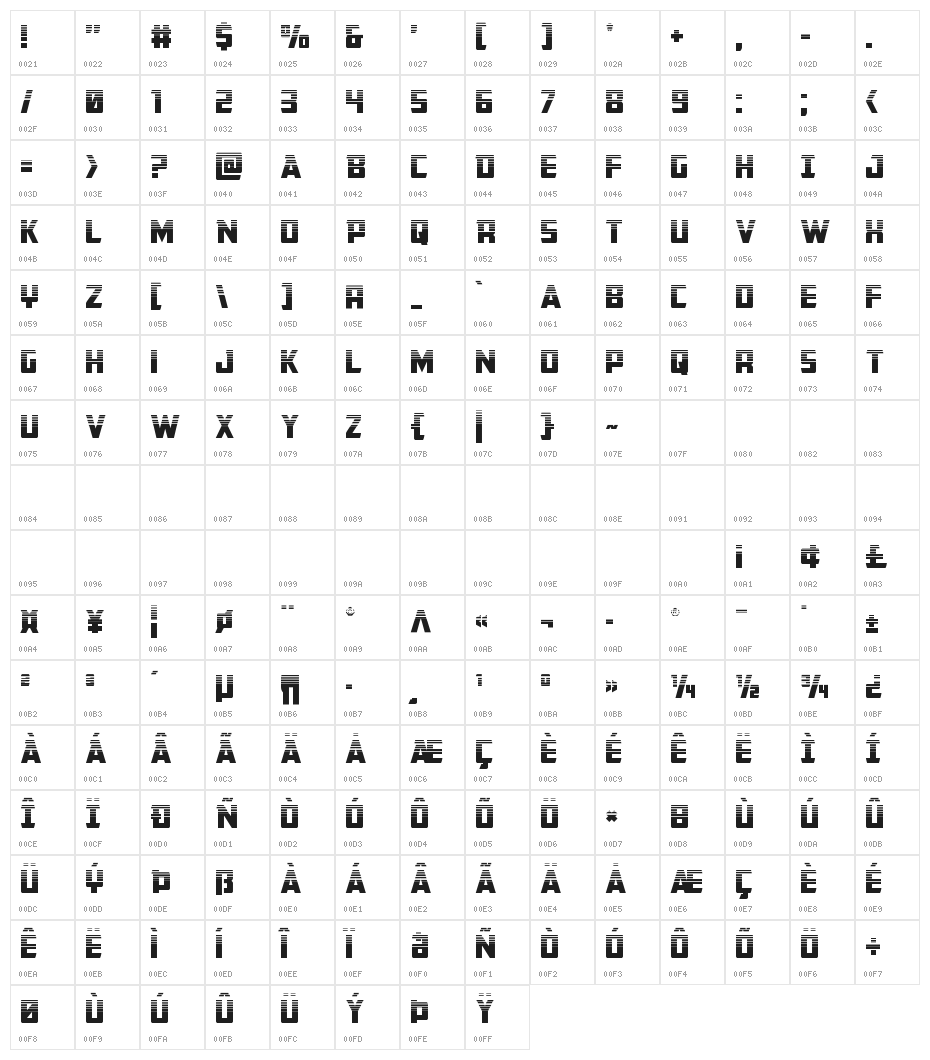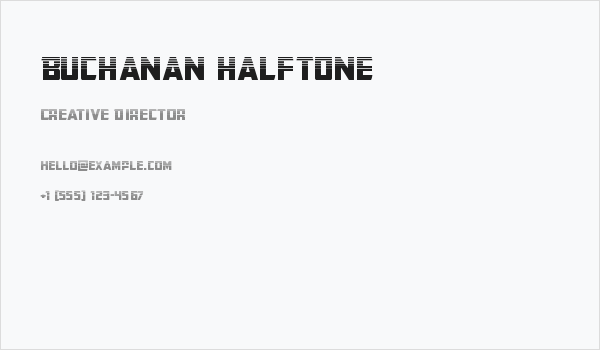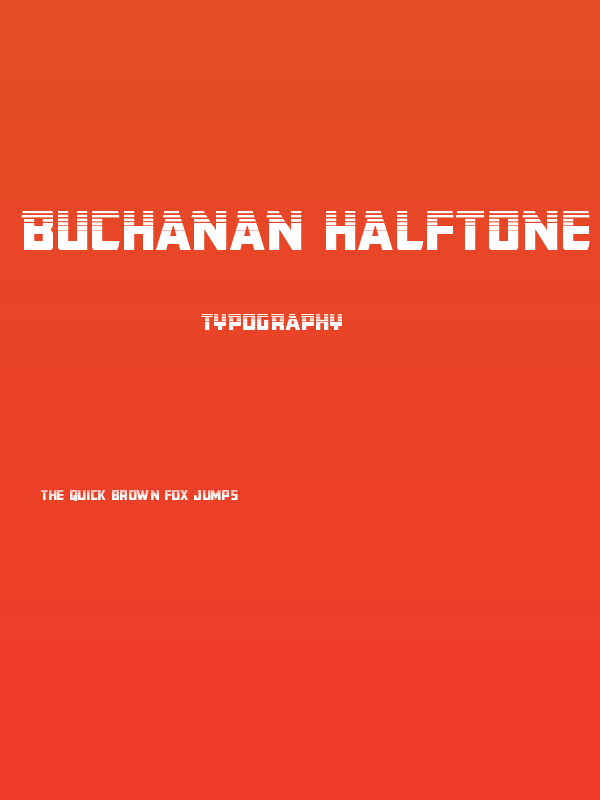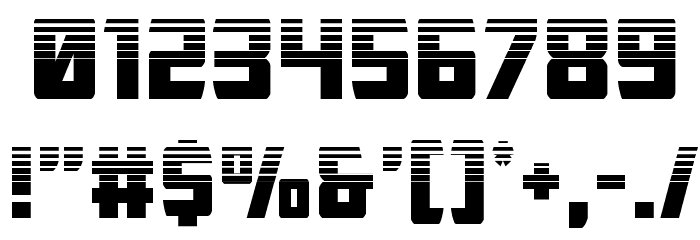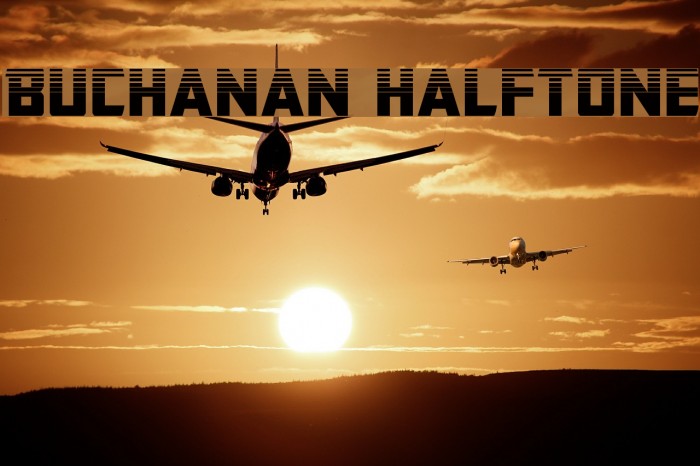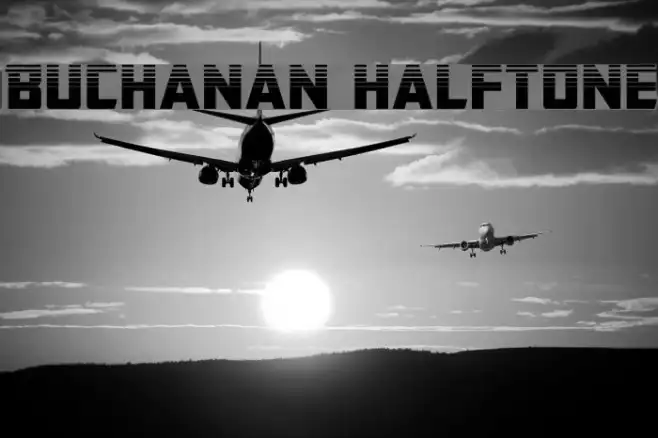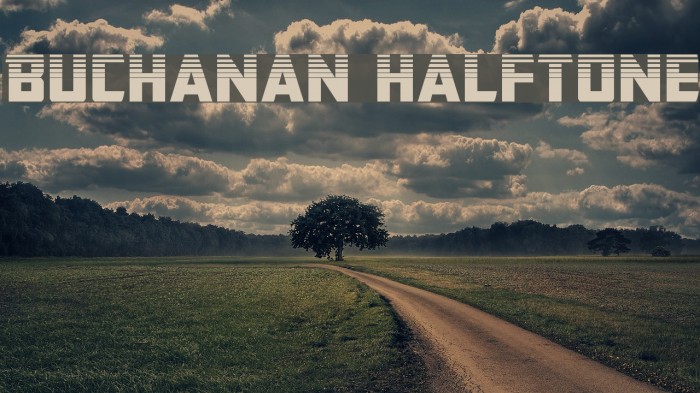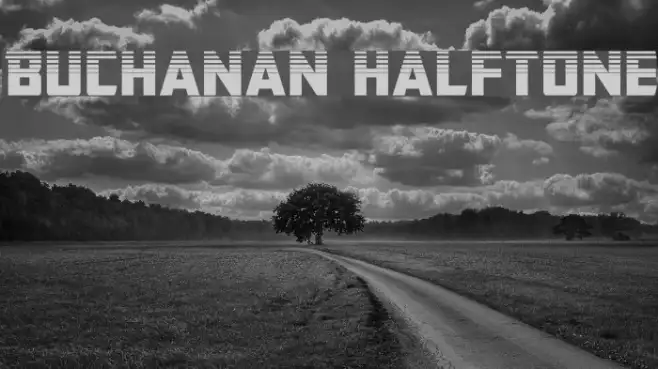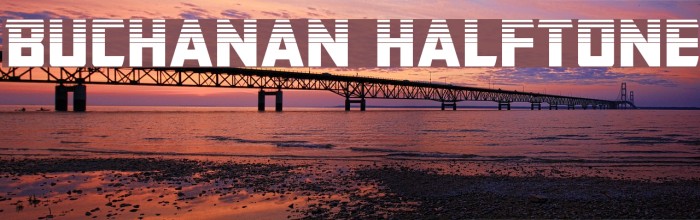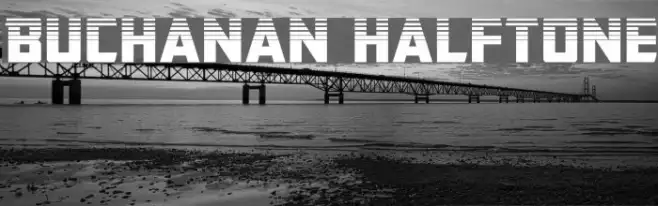
Buchanan Halftone Font
Buchanan Halftone Description
This font features a bold, geometric design with a distinct halftone effect that gives it a modern, industrial feel. The uppercase letters are constructed with solid, block-like shapes, while the halftone pattern adds a unique texture and depth. The numerals and special characters follow the same design principles, ensuring consistency across all elements. The font's strong visual impact makes it ideal for attention-grabbing headlines and display purposes. Its structured form and halftone detailing create a sense of movement and dynamism, making it suitable for projects that require a futuristic or tech-inspired aesthetic.
| Proposed Projects | Ideal for posters, branding, video game graphics, and any project requiring a futuristic or tech-inspired look. |